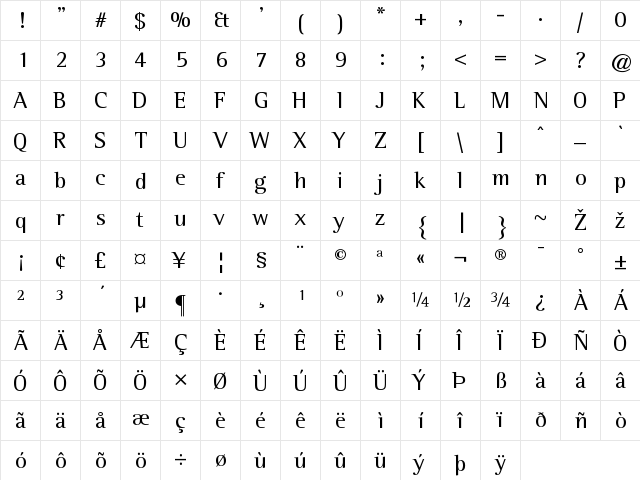
Leftist Mono Serif Regular
Design Context for Leftist Mono Serif Typeface
Leftist Mono Serif uses fixed-width spacing throughout, giving it the structured, systematic character associated with coding environments and technical documentation.
Well-suited to data-driven dashboards, coding tutorials, and any design that wants to reference the world of programming.
Pro Tip: Use Leftist Mono Serif with slightly increased line-height for extended reading — fixed-width spacing can feel dense in longer passages without extra breathing room.